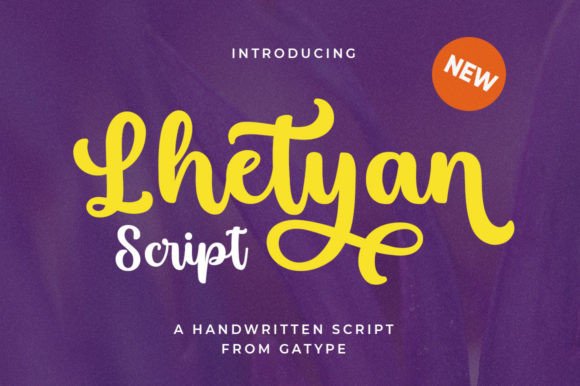
Adorn your designs with the captivating Lhetyan Script font, a calligraphic masterpiece that gracefully blends classic elegance with a modern twist. As you immerse yourself in its handwritten charm, you'll discover a font that effortlessly elevates your projects to new heights of sophistication and allure.
With its intricate strokes and expressive ligatures, Lhetyan Script is a visual delight that captivates the senses. It's the perfect choice for adding a touch of timeless beauty to your digital designs, personal branding, and social media graphics. Whether you're creating wedding invitations, heartfelt letters, or stunning logos, Lhetyan Script will infuse your words with a touch of elegance and charm.
Step into a world of creative possibilities with Lhetyan Script, and let your imagination soar. Its versatility knows no bounds, making it an indispensable tool for designers and creatives alike. From calendar designs that exude a touch of nostalgia to social media posts that capture attention, Lhetyan Script effortlessly elevates your content to new levels of sophistication.